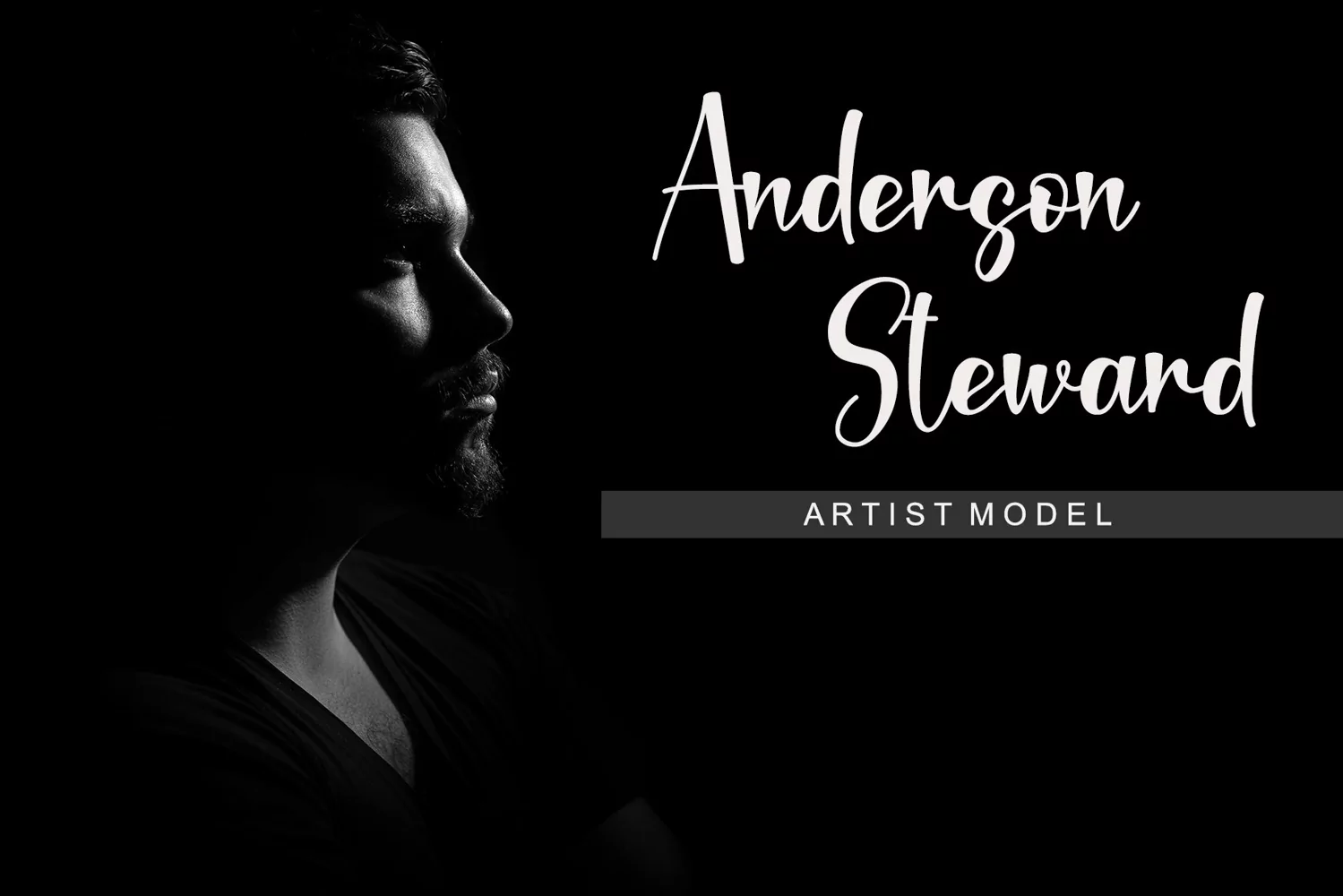
Beautiful Handwritten
Black Catthie
Black Catthie is a Calligraphy Script font by Letterafa Studio. It has flowing letters that will give your designs a unique and sweet look. Black Catthie font is perfect; logos, greeting cards, a package design, a brand identity, craft design, any DIY project, book title, wedding invitation, packaging, and more.